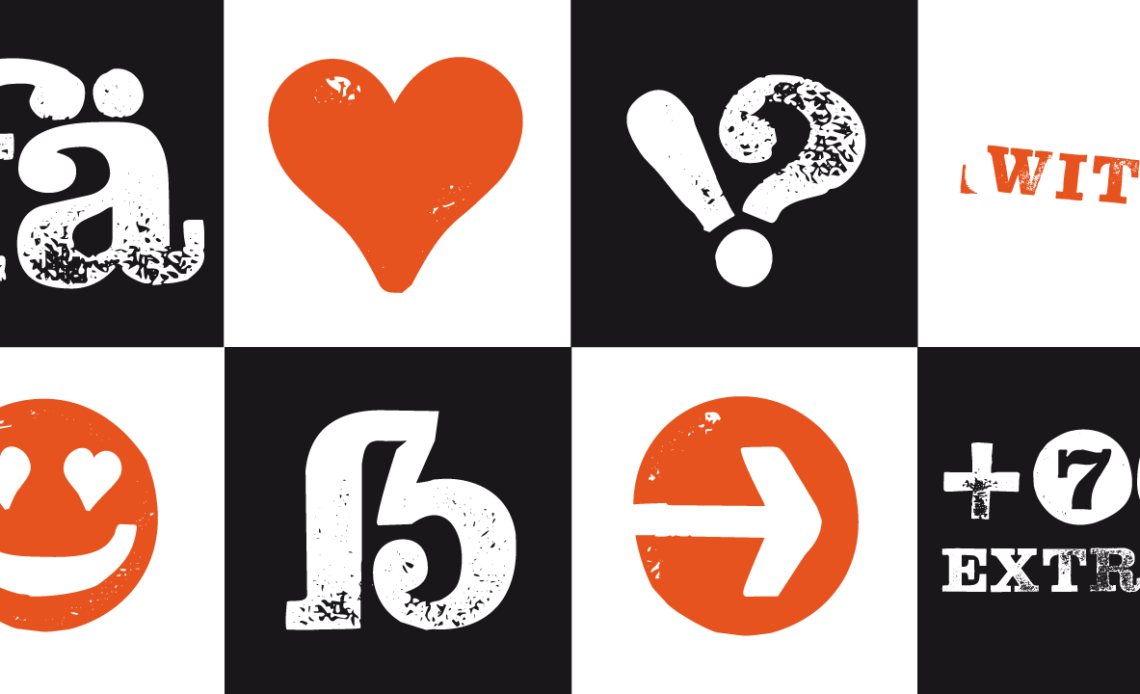
Journey through time with Hand Stamp Slab Serif Rough Mix Font, a spectacular display font evoking the charm of vintage rubber stamps. Dive into the intricate details of this font, meticulously crafted by Manuel Viergutz, an artist at TypoGraphicDesign, to bring forth an authentic, rough-and-dirty stamp-style that encapsulates the essence of history.
With its classic slab serif design, Hand Stamp Slab Serif Rough Mix Font adds a touch of ruggedness and character to your designs. Picture yourself creating logos, posters, advertisements, and magazine covers that emanate an aura of timeless elegance. Unleash your creativity and let the raw beauty of this font transport your audience to a bygone era.
But wait, there's more! Hand Stamp Slab Serif Rough Mix Font is a veritable treasure trove of typographic delights. With 1031 glyphs at your disposal, including 5 variations of each letter from A to Z and 0 to 9, you'll have endless possibilities to play with. And that's not all—the font boasts over 70 decorative extras, from arrows and dingbats to symbols and geometric shapes.
The possibilities are limitless. Experiment with various figure set options, including old-style figures, and add a dash of intrigue with decorative ligatures. Type the word "love" and watch it transform into a captivating symbol of affection. Embrace the magic of the Versal Eszett, a unique German capital sharp S, and sprinkle your designs with an array of symbols and emojis that add a touch of whimsy.
Hand Stamp Slab Serif Rough Mix Font excels in display sizes, making it the perfect choice for headlines that demand attention. Its intricate details and carefully crafted letterforms ensure that your designs will captivate and mesmerize viewers, leaving a lasting impression that lingers in their minds long after they've seen it.
Don't let this gem of a font pass you by. Embark on a typographic adventure with Hand Stamp Slab Serif Rough Mix Font and unlock a world of creativity and charm. Add it to your collection today and watch your designs flourish with the beauty and authenticity of the past.